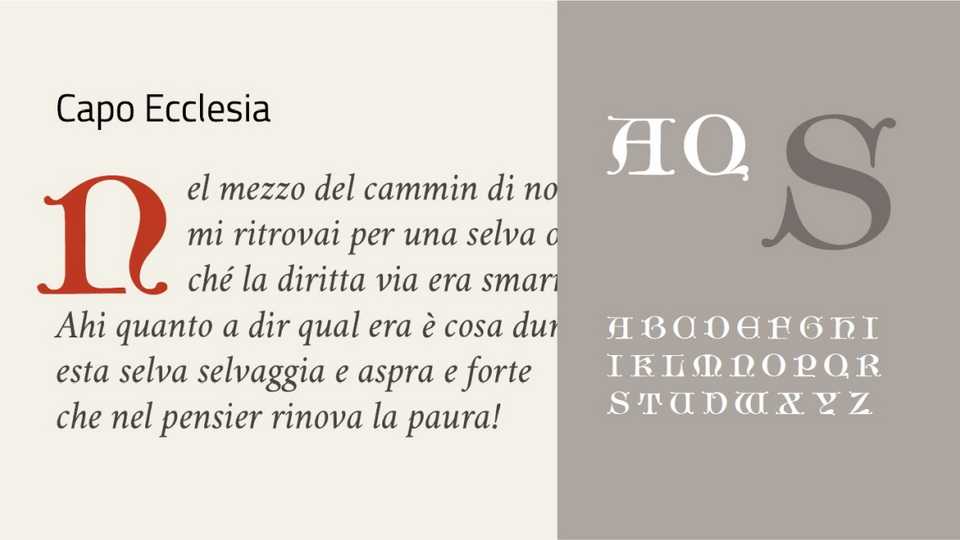
Download Capo Ecclesia font, a medieval typeface rooted in the beauty of ancient Gothic ecclesiastical manuscripts, as documented by Eric-Jean Müller in 50 Alphabets for Technicians and Technical Schools.
Designer: Michele Casanova